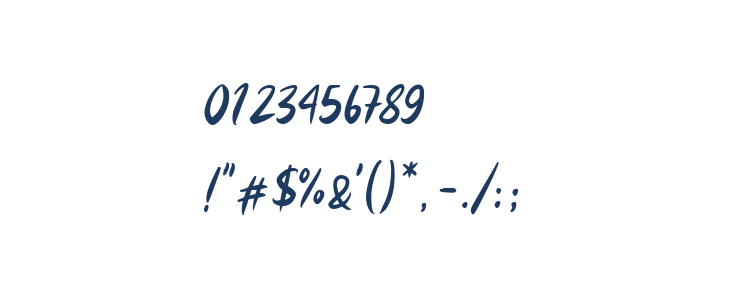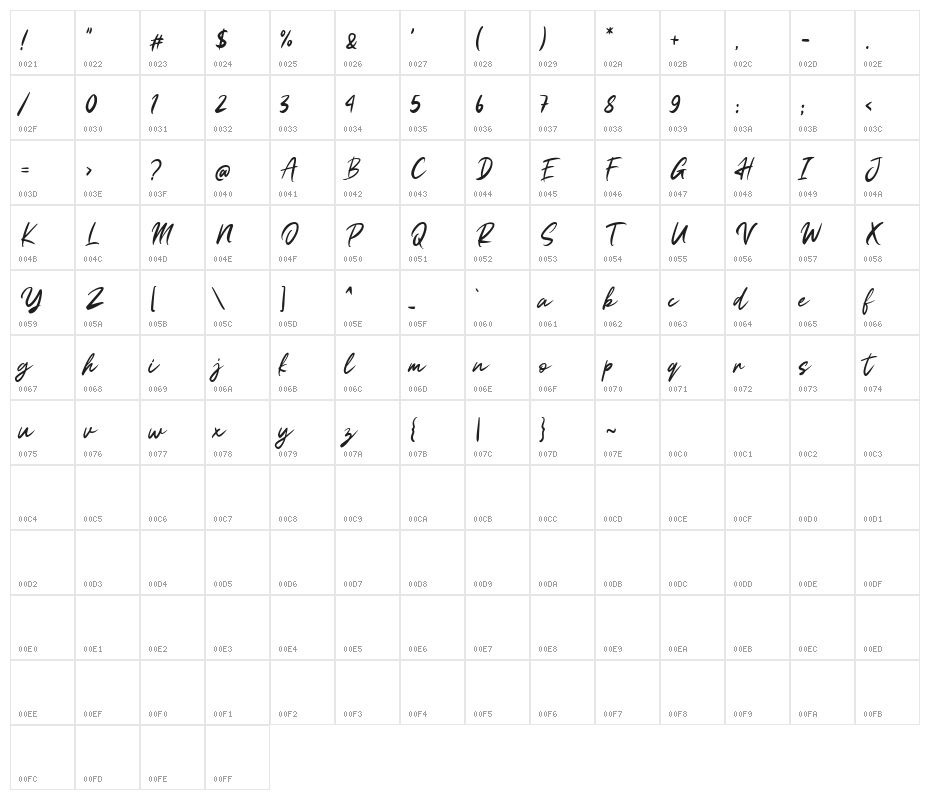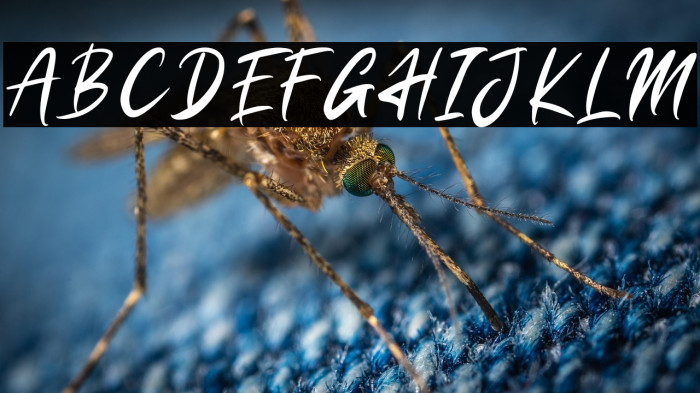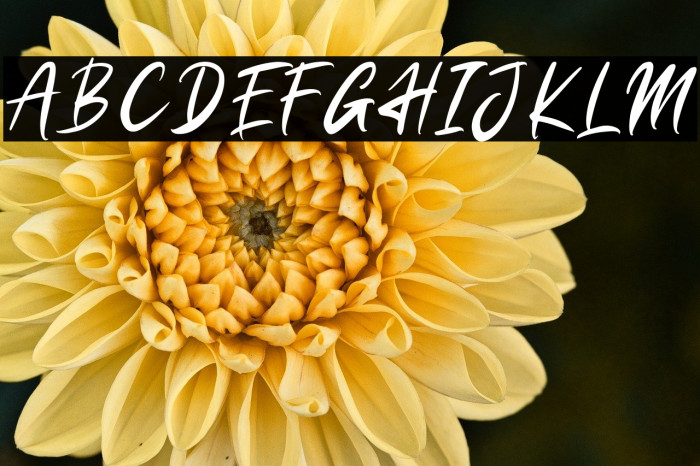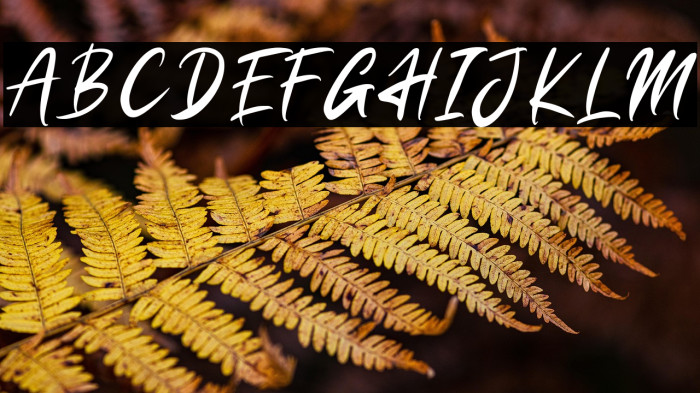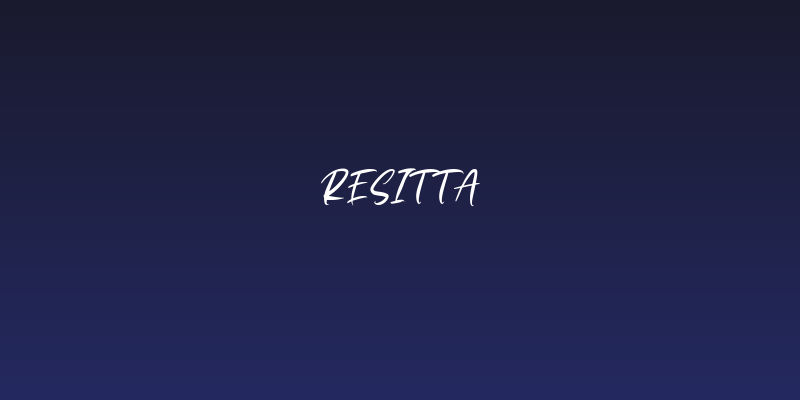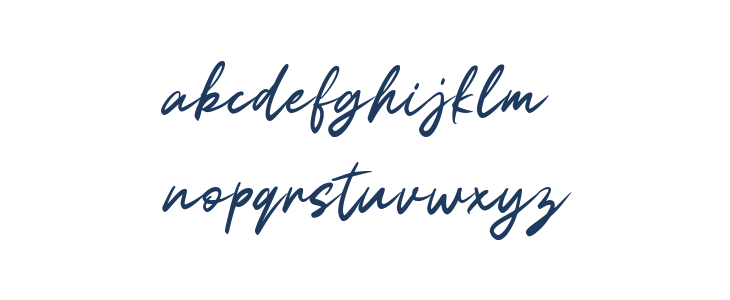
Resitta Font
Resitta Description
This font features a dynamic and expressive script style, characterized by its fluid, cursive strokes that convey a sense of elegance and movement. The uppercase letters are bold and slightly slanted, giving them a sense of forward motion, while the lowercase letters maintain a consistent flow with smooth connections between characters. The numerals are clear and legible, matching the overall style of the alphabet. Special characters are integrated seamlessly, maintaining the font's cohesive look. The design is both modern and timeless, making it versatile for various applications.